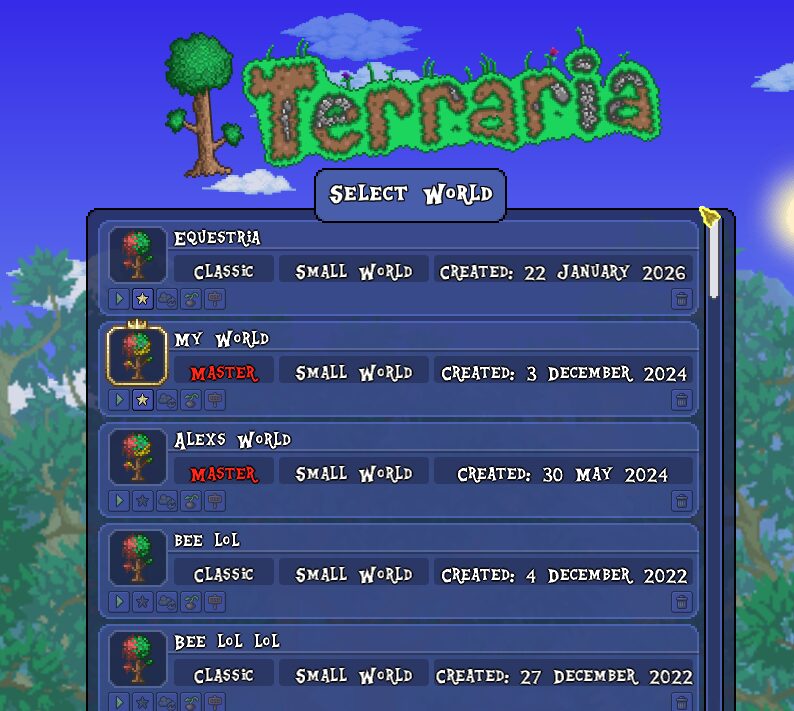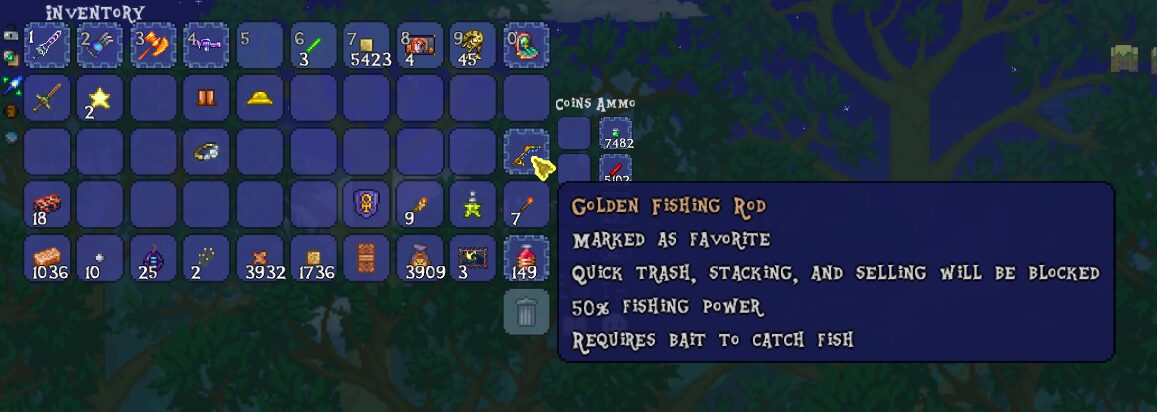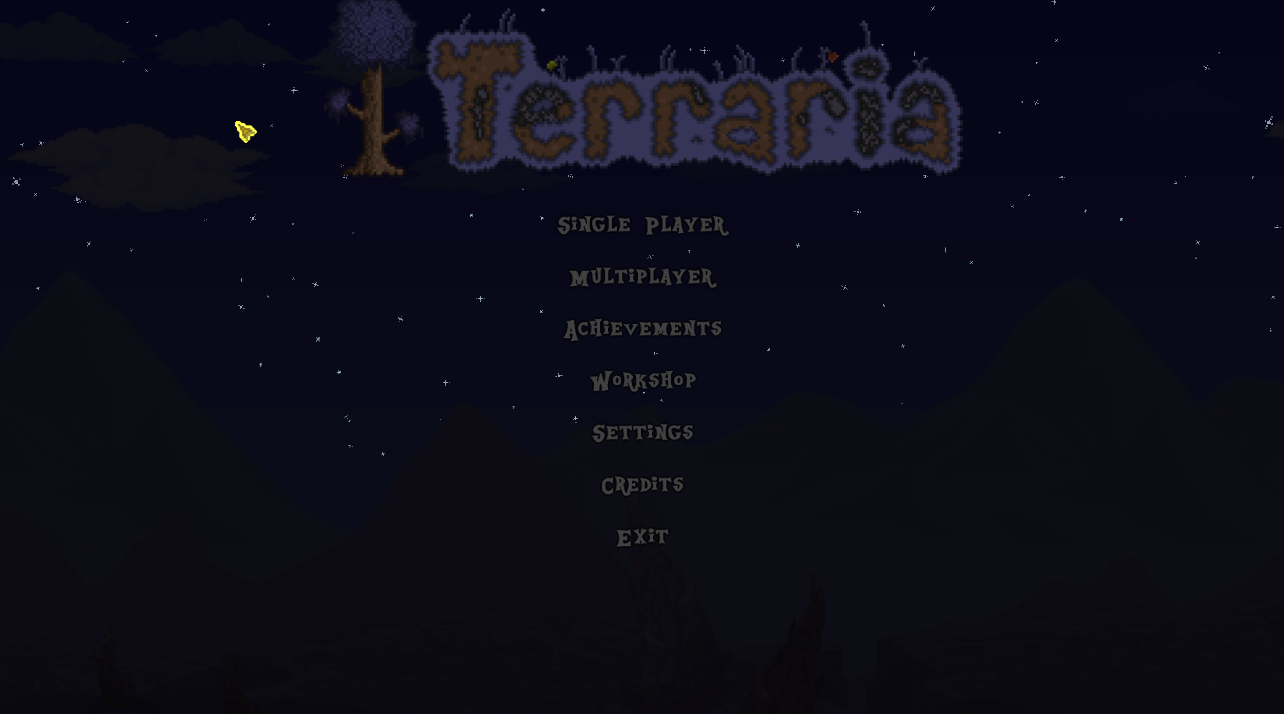
My Little Pony font (Equestria)
Bring the Magic of Equestria to Your Desktop with the My Little Pony Font
Ever dreamed of adding a touch of friendship, magic, and sparkle to your everyday digital life? Now you can! With the “My Little Pony Font (Equestria),” you can infuse your text with the whimsical charm of the beloved animated series, *My Little Pony: Friendship Is Magic*. This custom font captures the distinctive lettering style seen throughout Equestria, allowing you to express yourself in a way that’s both unique and delightfully nostalgic.
What Makes This Font Special?
This meticulously crafted font is designed to replicate the iconic typography featured in the *My Little Pony* universe. Whether you’re a longtime fan looking to personalize your projects or simply seeking a playful and eye-catching font, the “Equestria” font offers a fantastic way to stand out. It’s perfect for a wide range of uses, from personal letters and social media posts to fan creations and even small design projects.
Key Features of the Equestria Font:
- Authentic *My Little Pony: Friendship Is Magic* design
- Adds a touch of whimsy and charm to any text
- Ideal for fans and creative individuals
- Enhances the visual appeal of digital content
Unleash Your Creativity
Imagine crafting birthday invitations that feel straight out of Canterlot, or writing fan fiction that truly immerses your readers in the world of Equestria. This font makes it possible. Its clean lines and playful curves ensure readability while maintaining that unmistakable *My Little Pony* flair. Installation is straightforward, allowing you to quickly integrate this magical font into your favorite writing and design software. Dive into a world of creativity and let the spirit of friendship shine through your words!